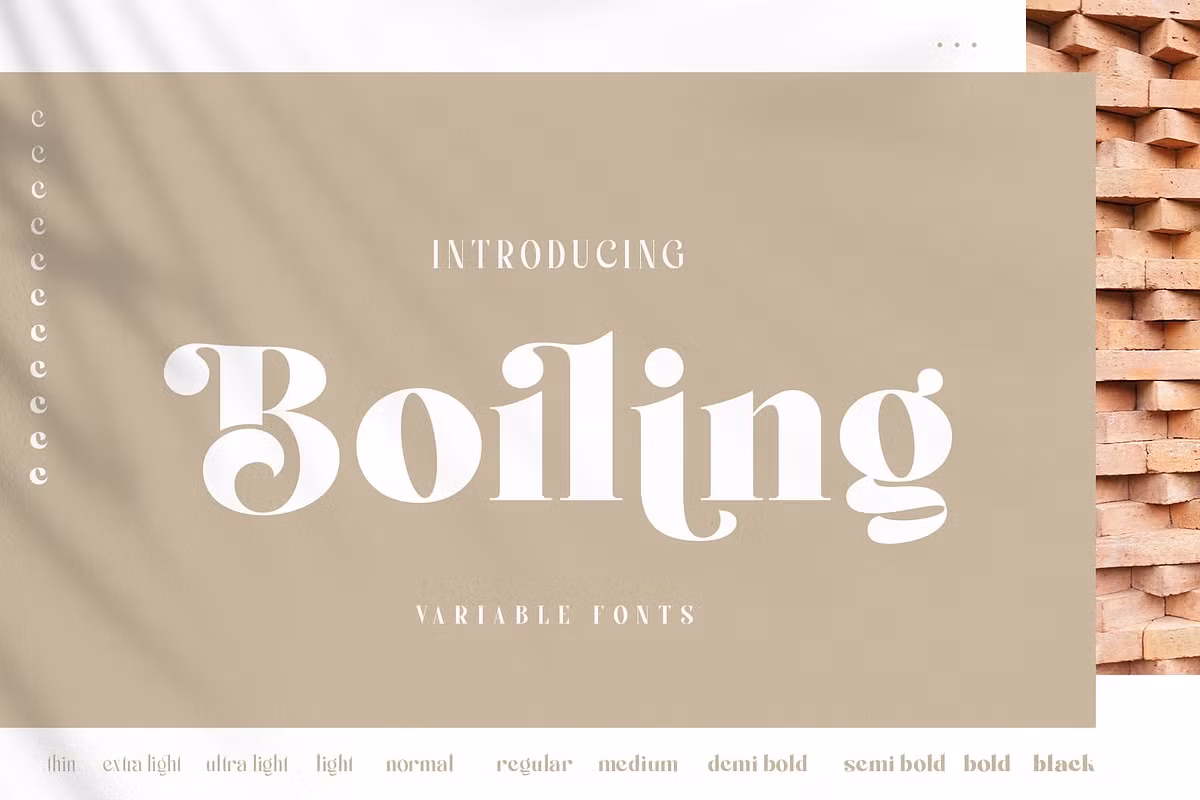
Boiling Variable Fonts Free Download is a dynamic and modern type system that offers multiple styles in one flexible package. With smooth transitions between weights and widths, this font is perfect for web design, branding, UI/UX projects, and bold visual identities that demand versatility and control.
Whether you're designing sleek headlines or responsive interfaces, Boiling Variable Fonts Free Download gives you the power to fine-tune typography with precision. Its clean lines, strong structure, and wide range of variations make it a must-have for designers seeking adaptability without compromising on style. Try it in your next creative project to see how it performs—then upgrade to a commercial license when you're ready to go live with confidence.